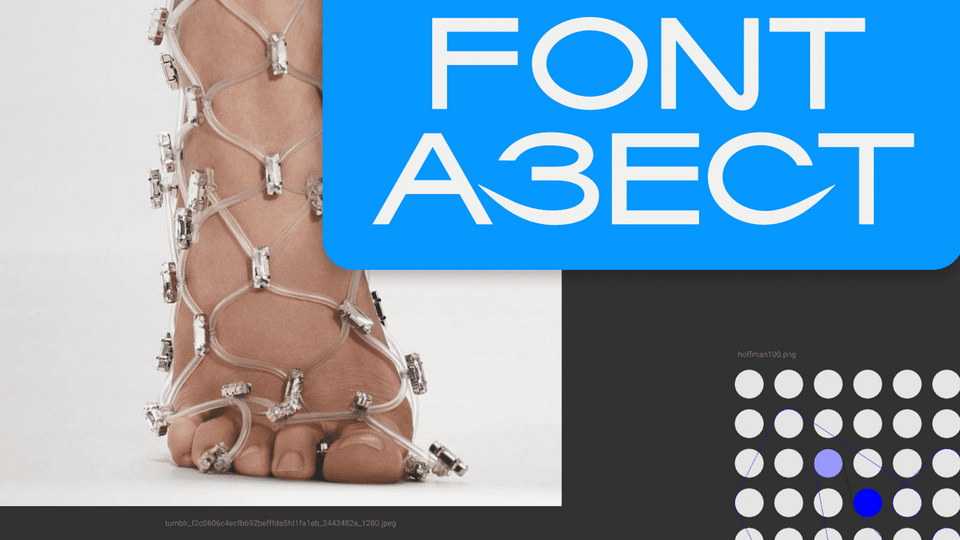
Download Azest font, a grotesque, with the addition of decorative elements, so as not to get too bored in the text. The proportions of the signs are elongated in width.
Designer: Viktor Pesotsky